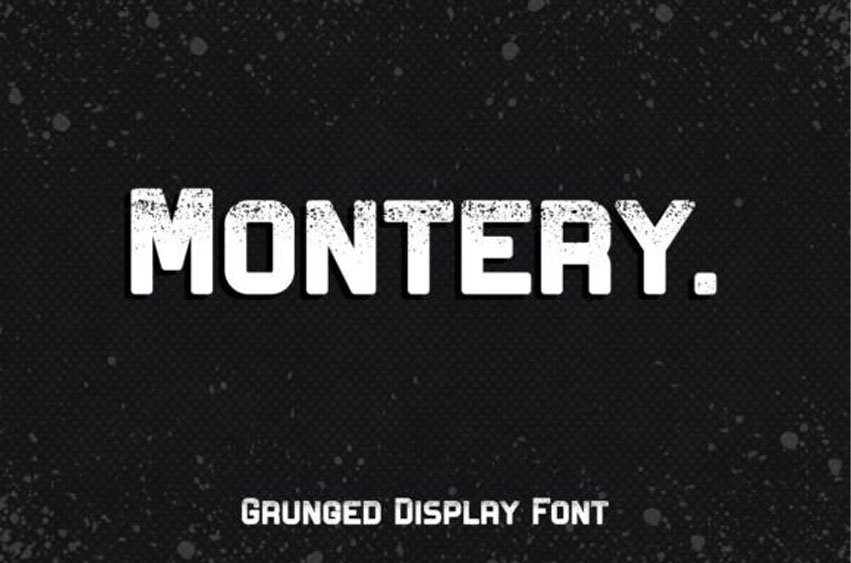
Montery Display Font
MMontery Display Font is a cool, grunge display font.
Its textured characters are perfect for creating a wide array of original designs.